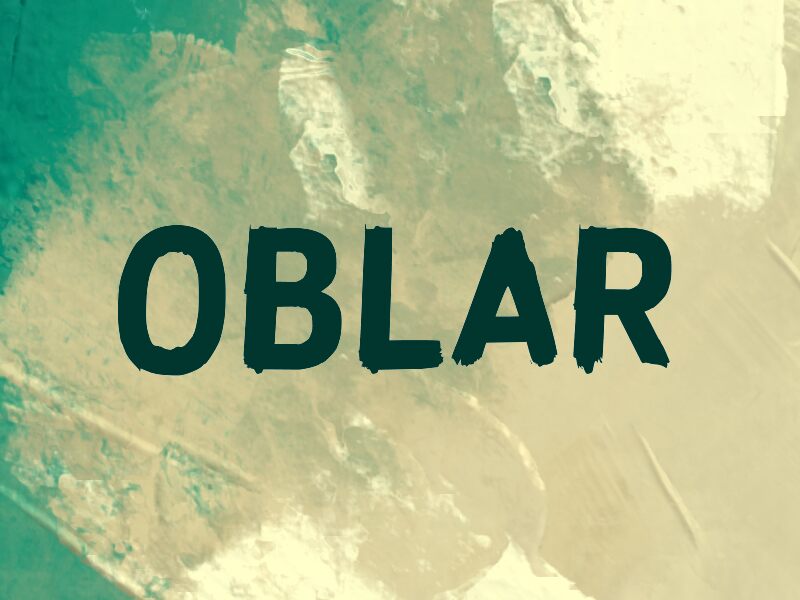
OBLAR
Oblar font by wep is a free brush typeface that looks like it’s been slammed onto the page with a loaded, messy marker. The letters are thick, tall, and slightly wobbly, with ragged bottoms that feel torn, scraped, or half-dry, like ink dragged across cardboard. It has a bold, handmade attitude that instantly adds grit and urgency, especially at larger sizes where those rough edges really show.
Using Oblar, you can push energy into gig posters, horror titles, protest graphics, zines, edgy social posts, YouTube thumbnails, or noisy sticker designs. This free font works best when you let it shout—keep it big, short, and punchy. For supporting text, pair Oblar with a clean, simple sans serif so its wild brush texture stays the main event.